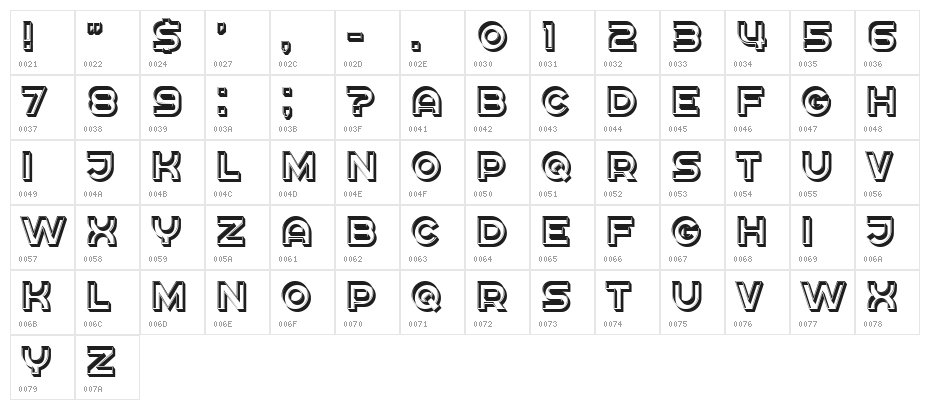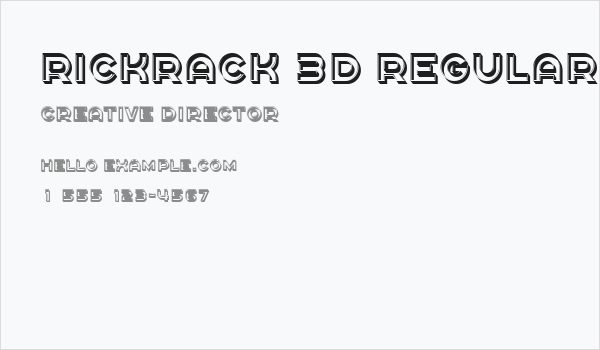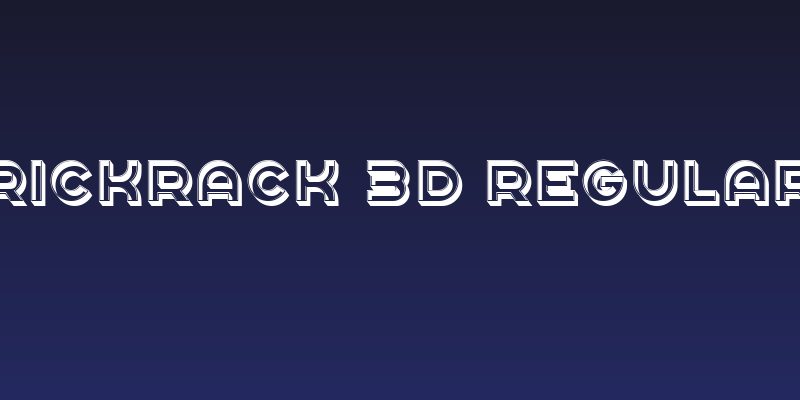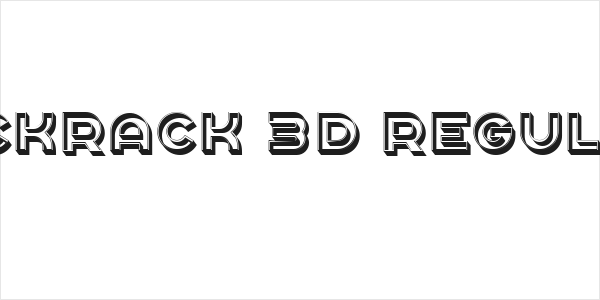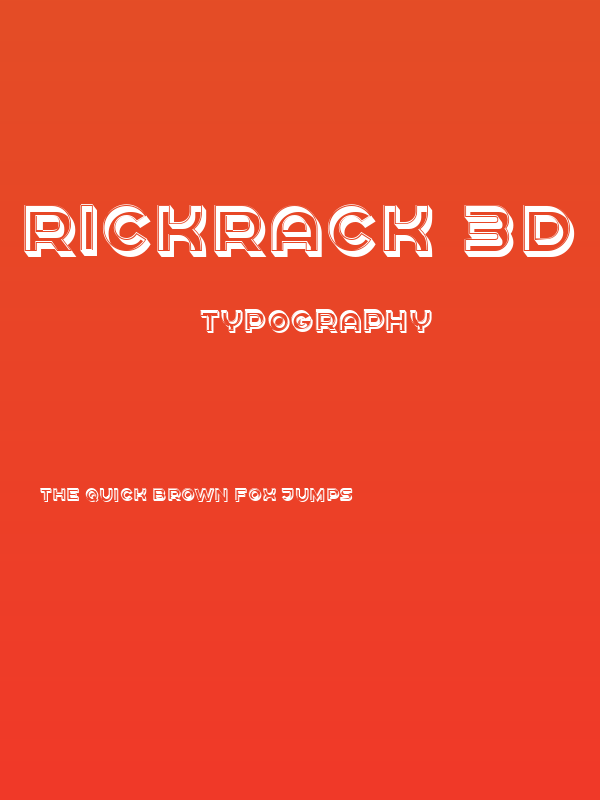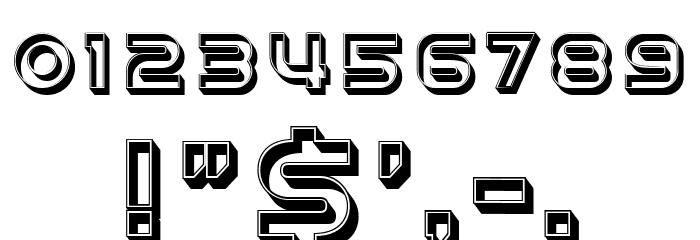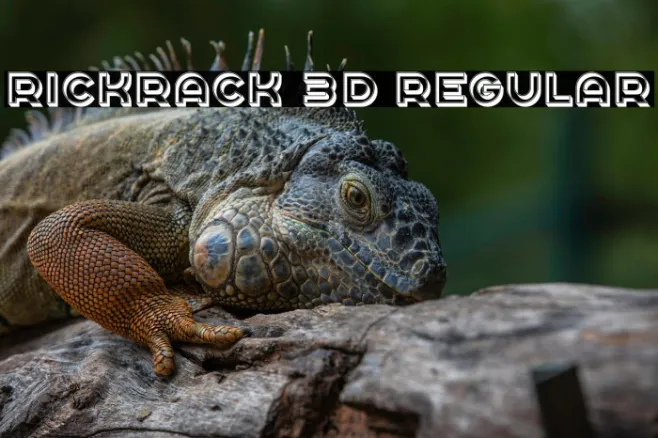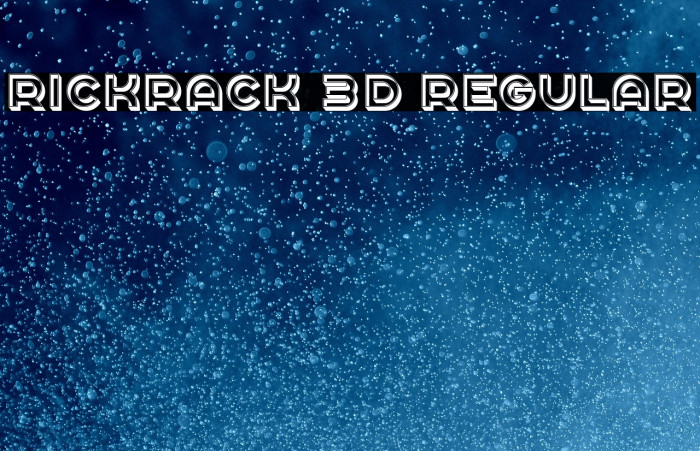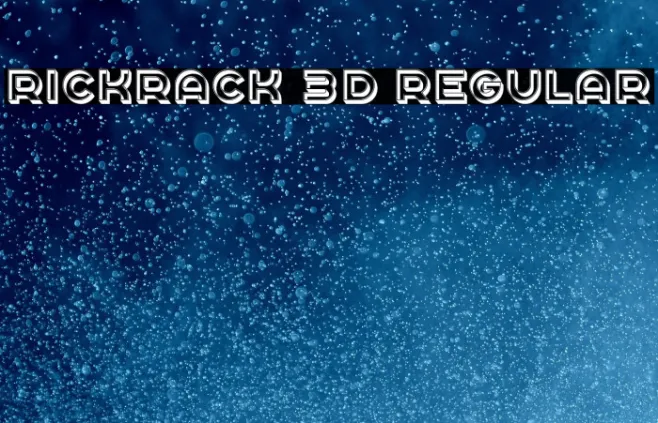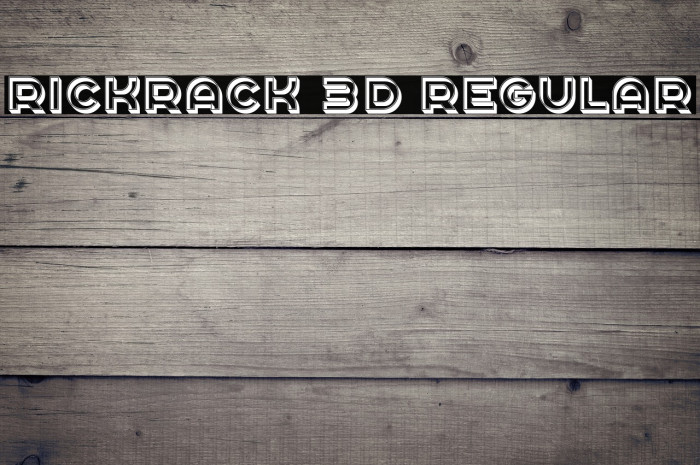
Rickrack 3D Regular Font
Rickrack 3D Regular Description
This font features a bold, three-dimensional design with a strong geometric influence. The characters are uppercase and numerals, each outlined with a shadow effect that gives a sense of depth and dimension. The style is reminiscent of retro or vintage signage, with clean lines and a structured form. The letters are evenly spaced, contributing to a balanced and cohesive appearance. The font's boldness and distinct 3D effect make it highly suitable for attention-grabbing designs. Its unique style is both playful and assertive, making it versatile for various creative applications.
| Proposed Projects | Ideal for posters, signage, branding, and any project requiring a standout, retro aesthetic. |